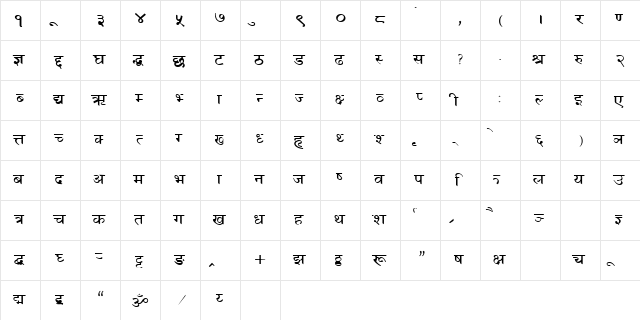
Lakshmi Regular
Design Context for Lakshmi Typeface
Lakshmi offers clean, dependable letterforms without strong stylistic allegiance, making it a practical choice for designers who need flexibility.
Pro Tip: Pair Lakshmi with a font of contrasting weight or personality to build a more expressive typographic hierarchy.